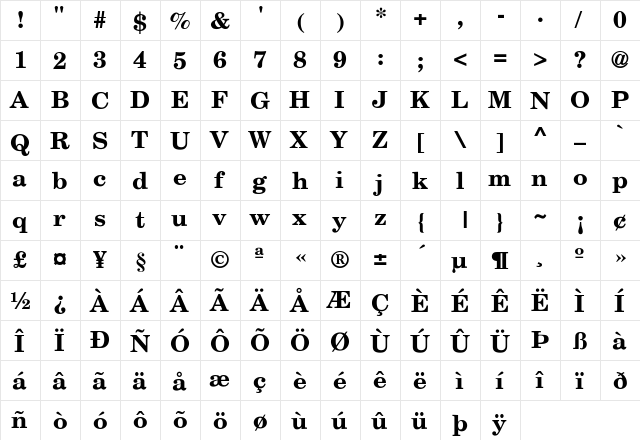
NewCenturySchlbk-Bold Regular Font Preview
NewCenturySchlbk-Bold Regular
Design Context for NewCenturySchlbk-Bold Typeface
NewCenturySchlbk-Bold offers clean, dependable letterforms without strong stylistic allegiance, making it a practical choice for designers who need flexibility. Its bold stroke weight gives it real presence on the page.